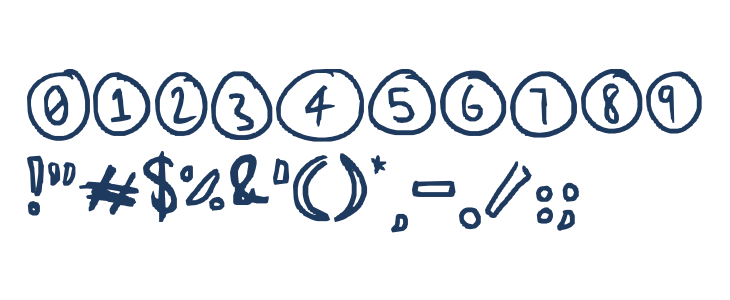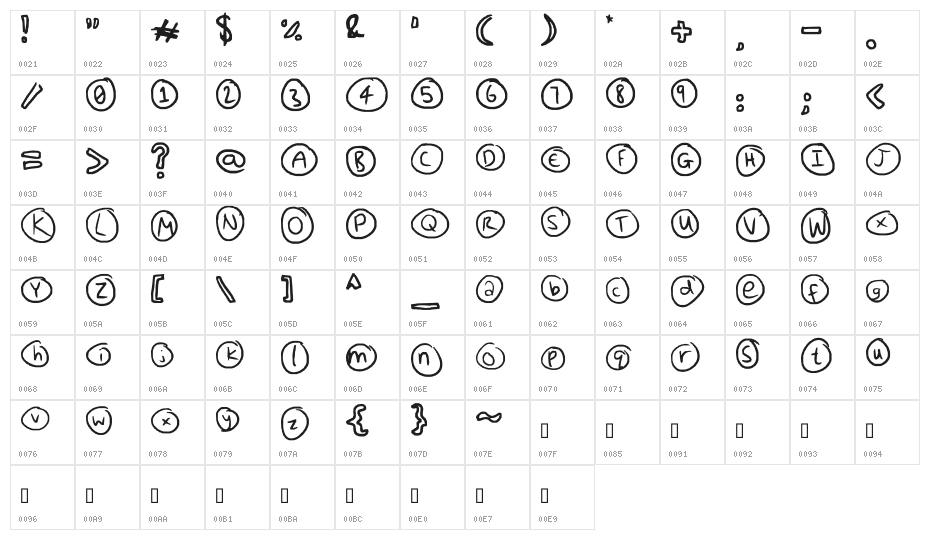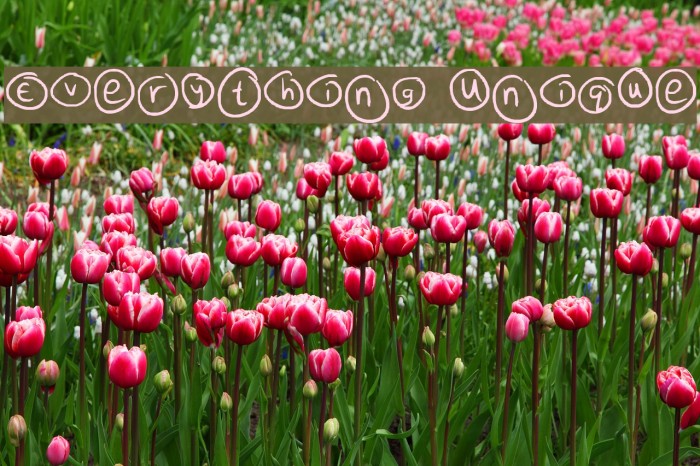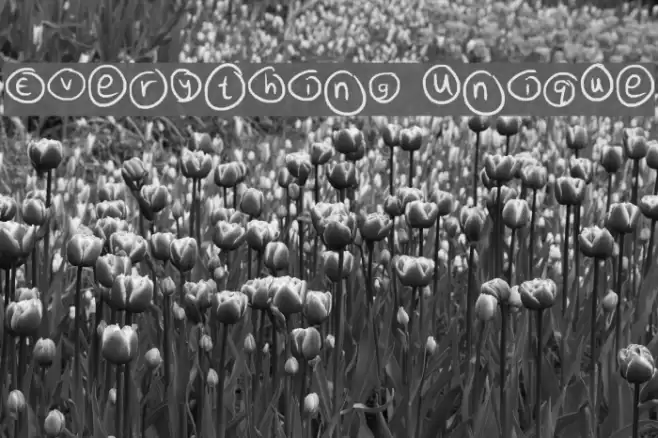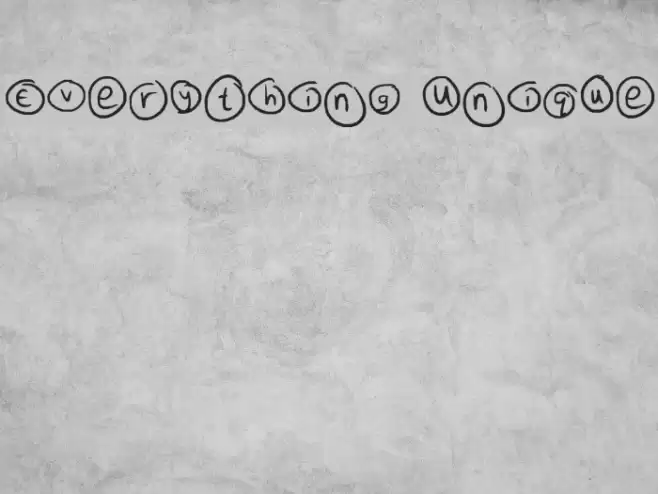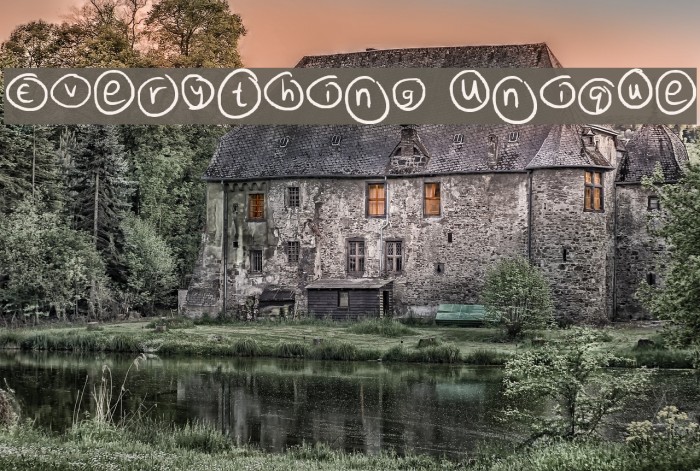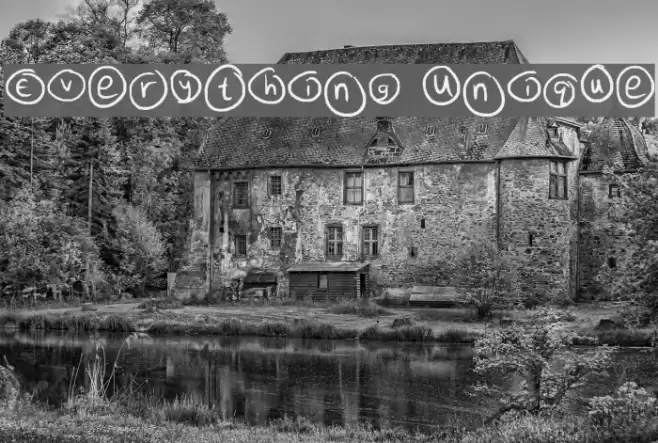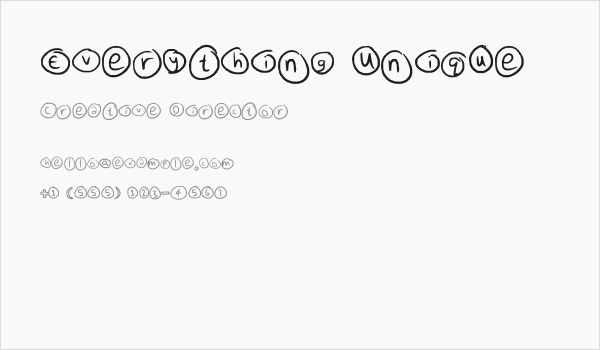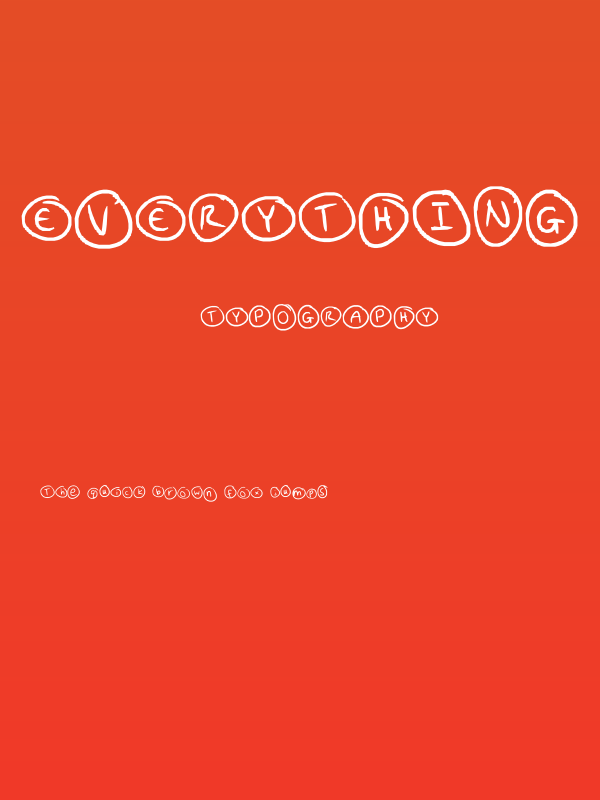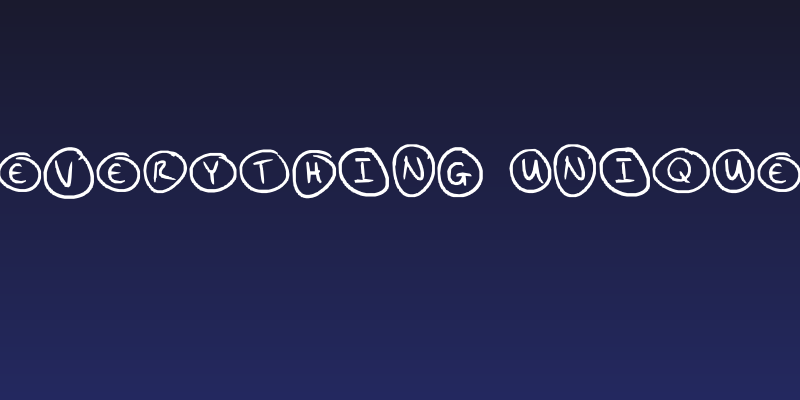
Everything Unique Font
Everything Unique Description
This playful and whimsical font features characters enclosed in hand-drawn circles, giving it a unique and informal appearance. The letters are bold and rounded, with a casual, doodle-like quality that adds a sense of fun and creativity. The numbers and special characters follow the same style, maintaining consistency across the font. The overall design is reminiscent of hand-drawn sketches, making it ideal for projects that require a personal touch or a playful aesthetic. The font's distinct style is perfect for capturing attention and conveying a sense of individuality.
| Overall Style | Whimsical, Playful, Informal |
| Proposed Projects | Ideal for children's books, creative posters, playful branding, and casual invitations. |